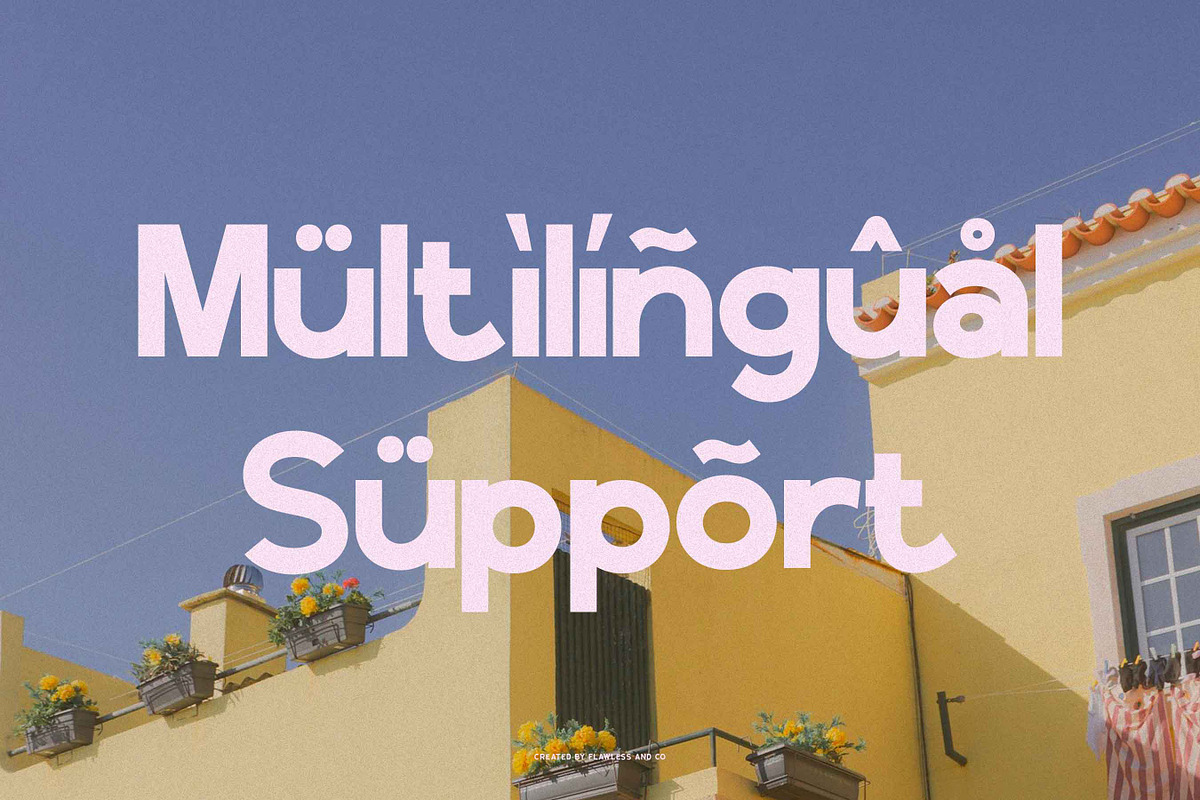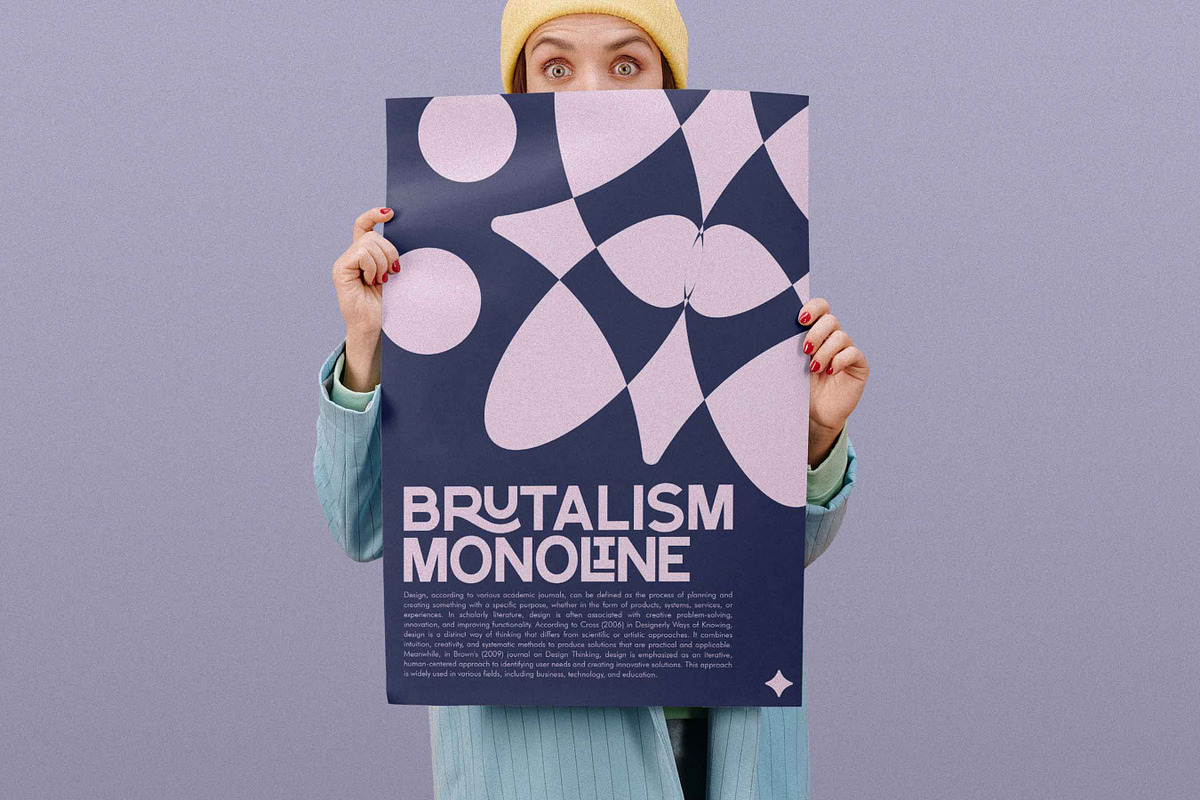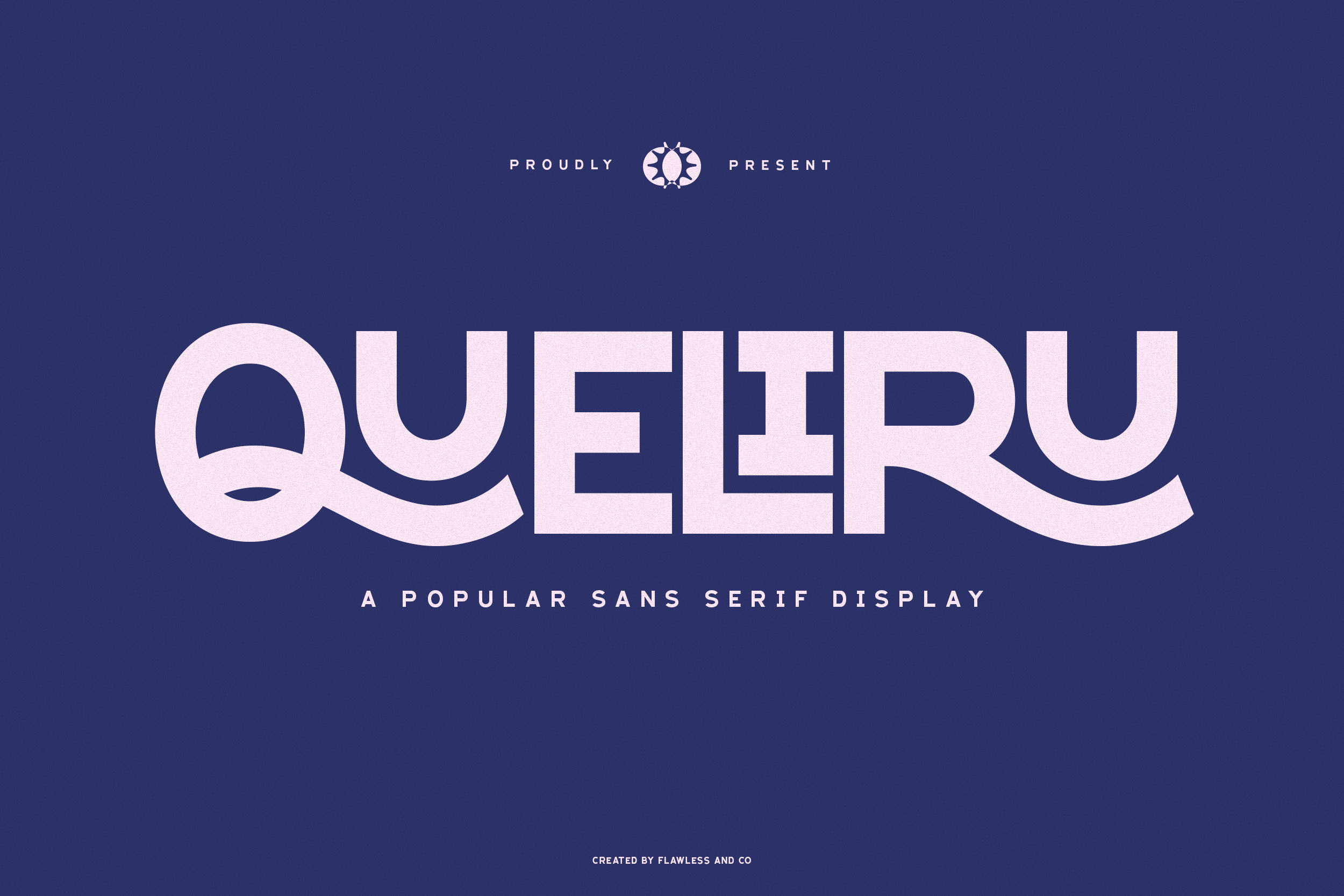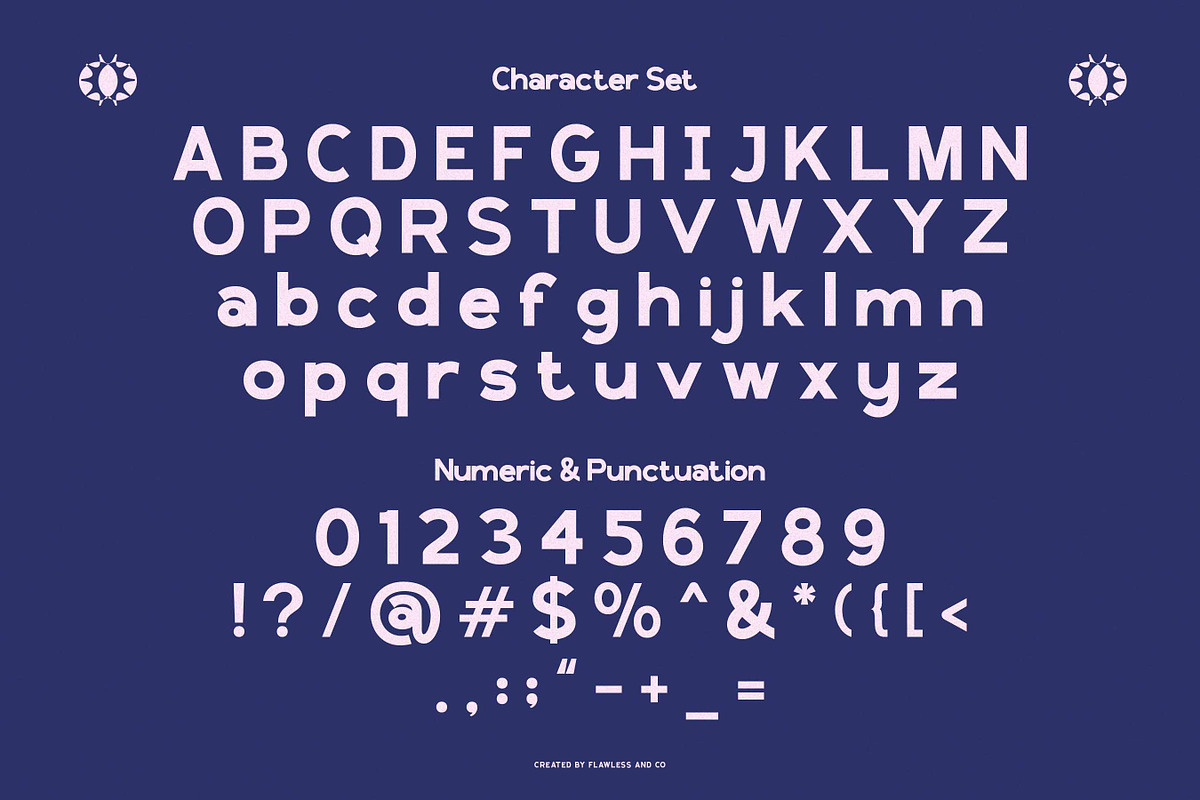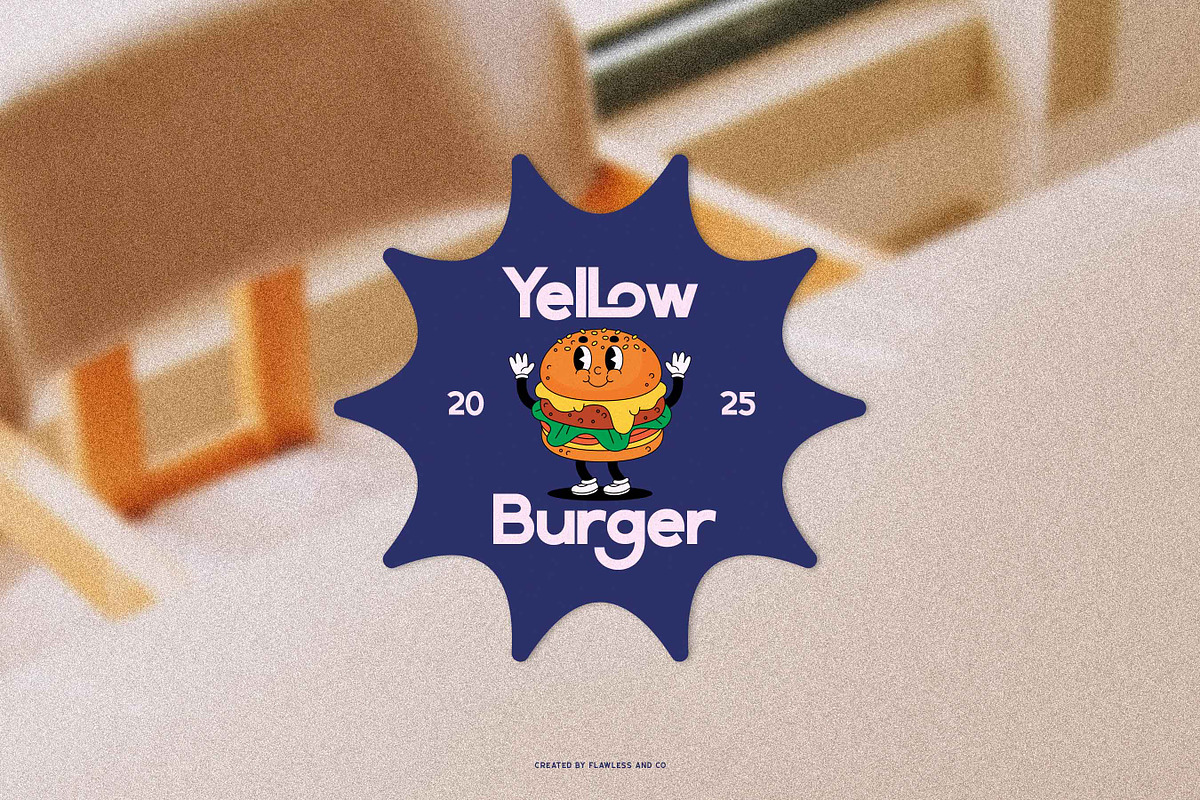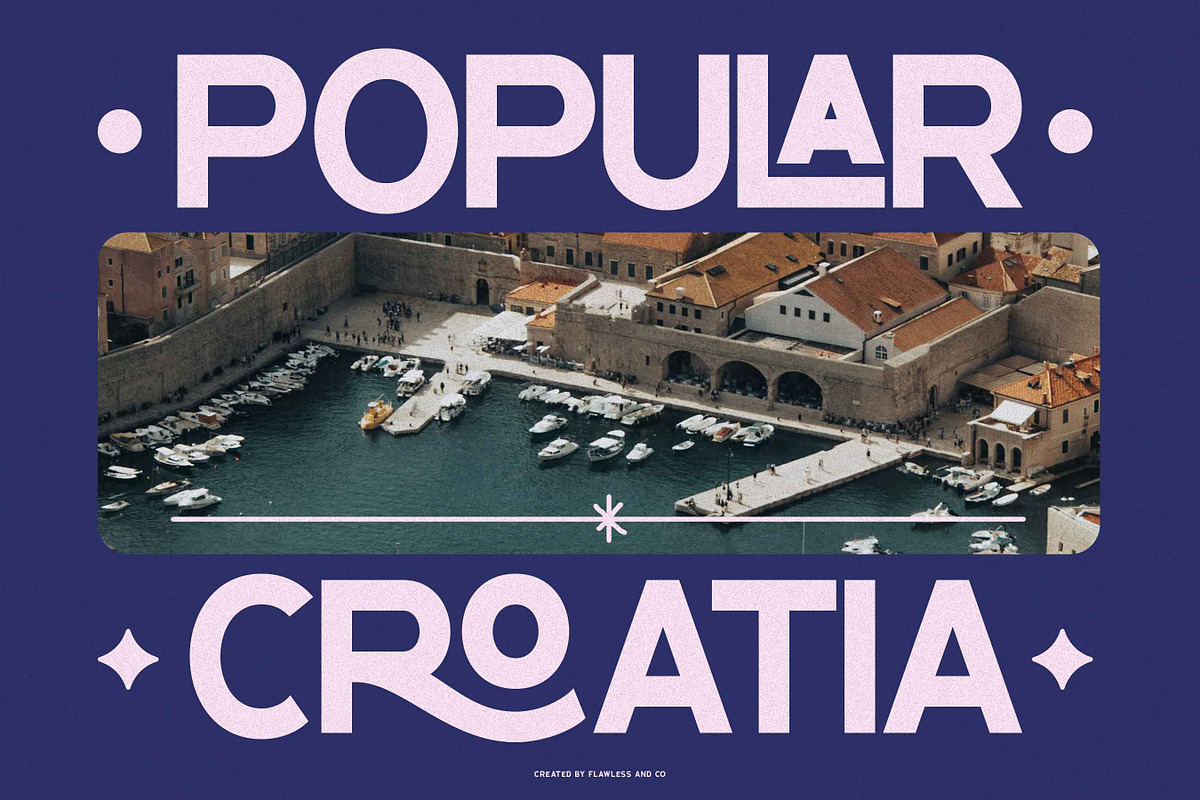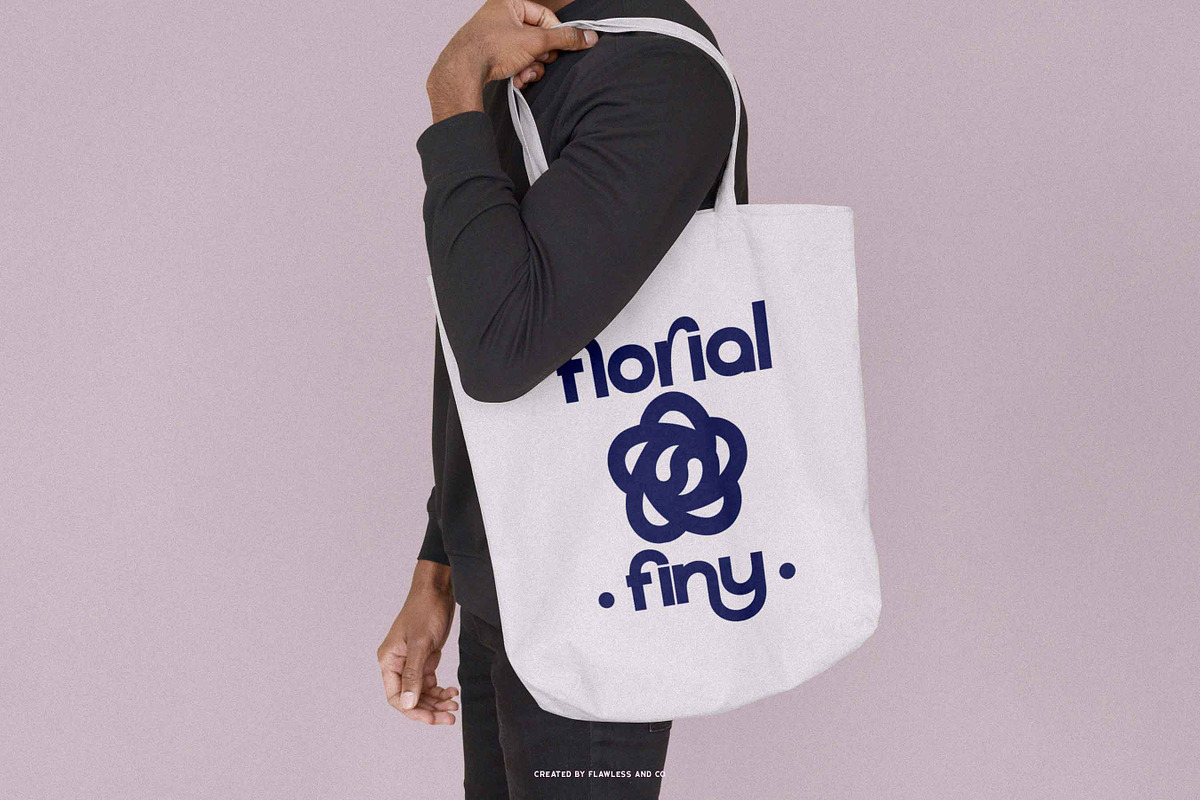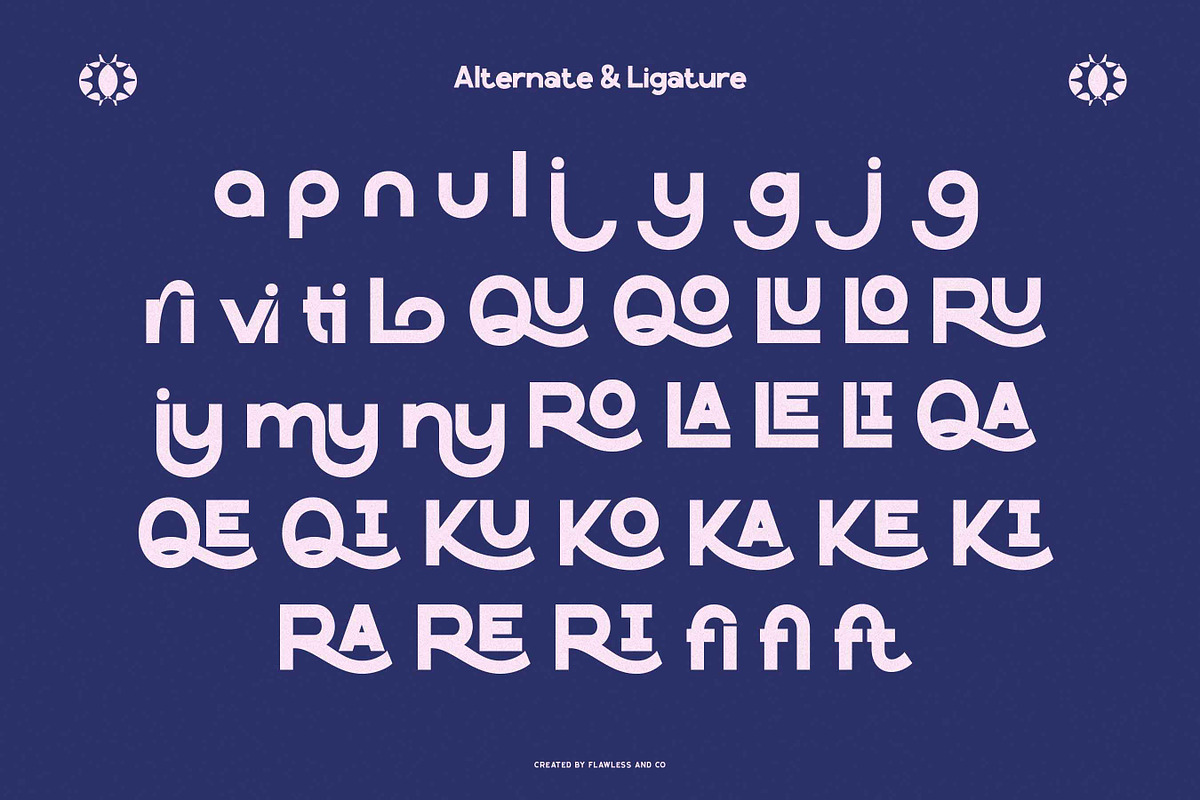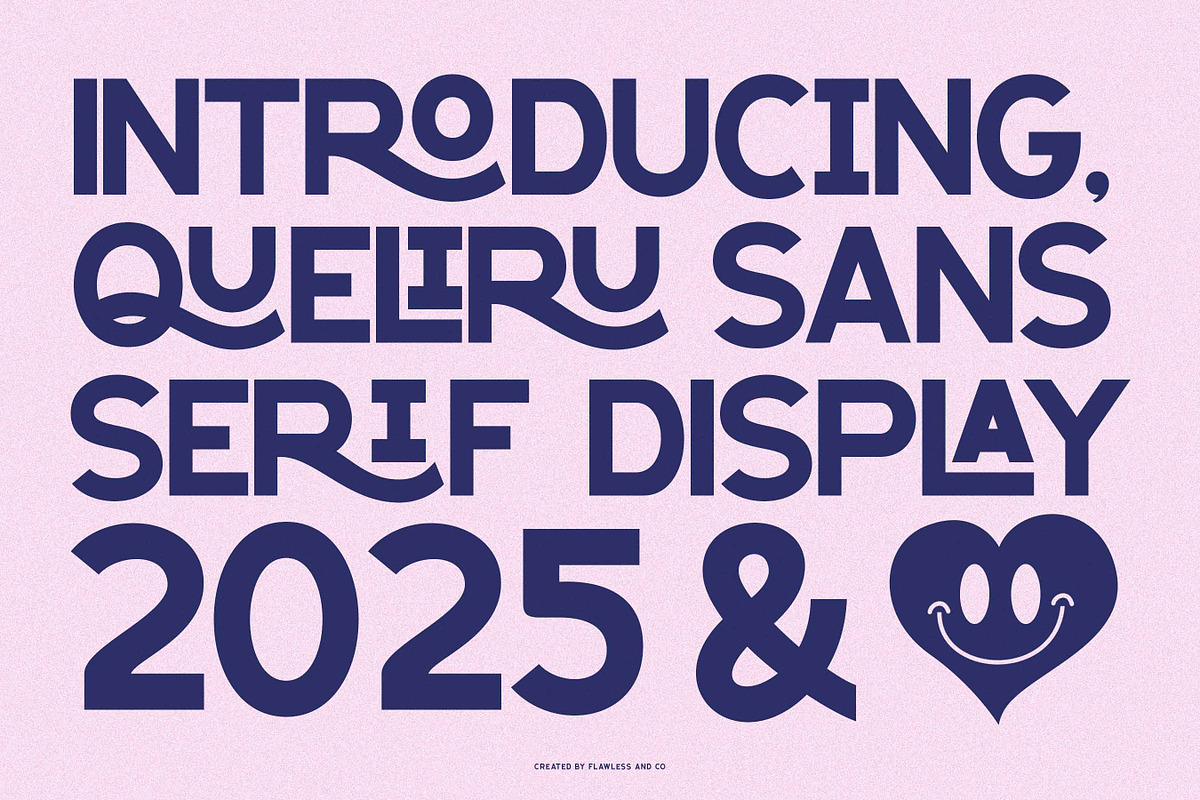
Queliru - Sans Serif Display Font
Queliru is a bold sans serif display font that exudes strength and modernity. With its clean lines and impactful presence, this font is suitable for branding, headlines, posters, sports designs, advertising, and social media graphics. Its bold structure makes it perfect for projects that require a powerful and eye-catching look.
Multilingual Uppercase alphabet A-Z Lowercase alphabet a-z Numbers 0-9 Some punctuation Alternates & Ligatures